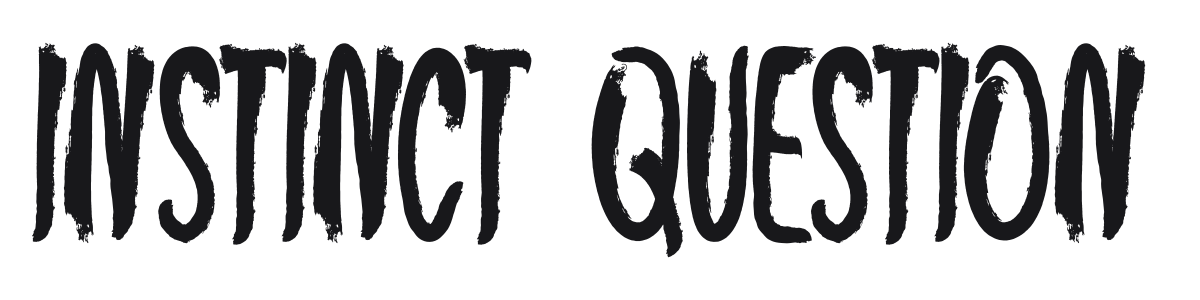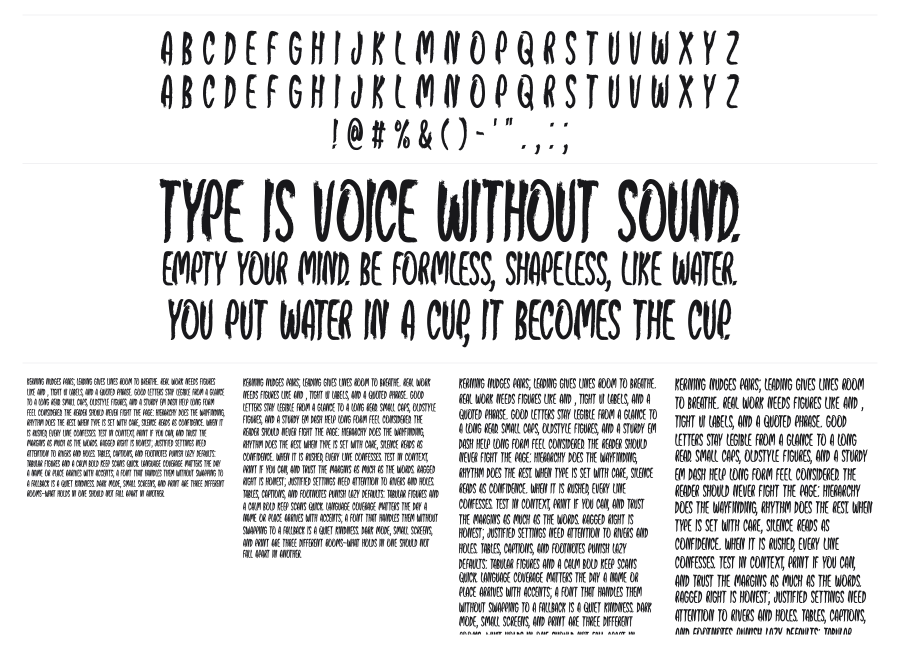
Instinct Question
Instinct Question is a heavy condensed display font with an aggressive distressed texture that mimics rough brush painting or weathered ink. Every character carries a raw, eroded quality that makes it feel like it was stenciled onto a wall or printed on aged paper. The bold weight and tight proportions give it strong impact at headline and poster sizes.